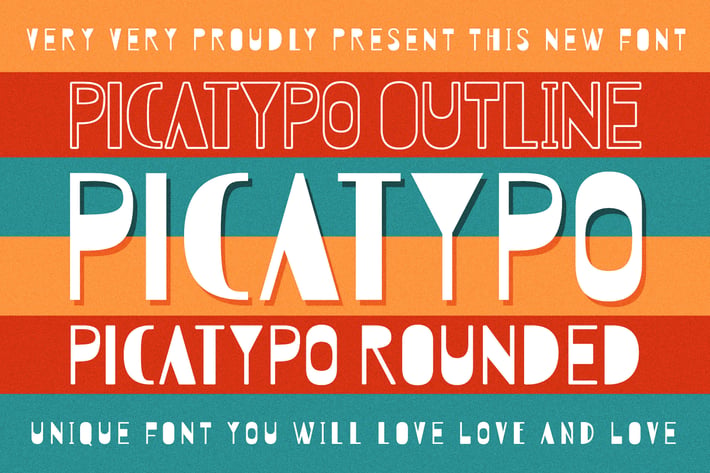
Picatypo Unique Vintage Business Font
PICATYPO is a special font for your logo & branding.
Every character is designed for a good logo, so not suitable for a long text.
You can make your logo easily, and use your logo on your website, prints, magazine, poster, and many design projects
Every character is designed for a good logo, so not suitable for a long text.
You can make your logo easily, and use your logo on your website, prints, magazine, poster, and many design projects